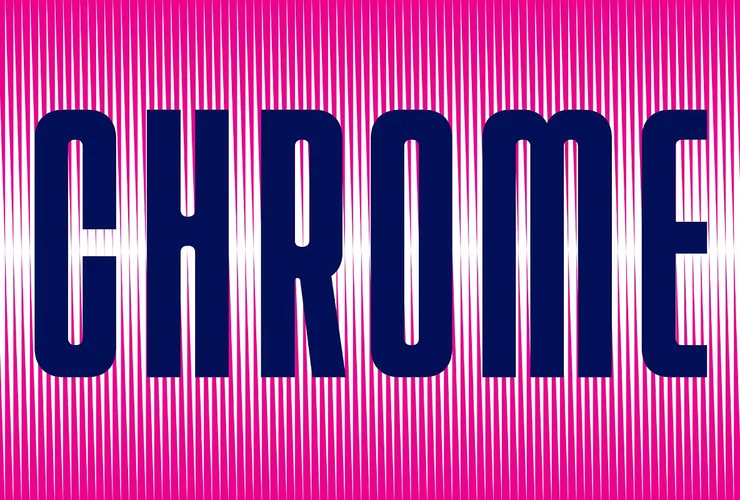
Araneo Condensed: A Futuristic Sans Serif by Stanley Fonts
Araneo Condensed is a sleek and futuristic sans serif font that offers a modern, condensed design perfect for a variety of creative projects. Created by Stanley Fonts, this font family brings a cutting-edge aesthetic to any design, whether you’re working on branding, editorial layouts, or digital interfaces.
Why Choose Araneo Condensed?
Araneo Condensed is designed for those who seek a clean, modern look with a strong visual impact. Its condensed nature allows for more text to fit within a given space, making it ideal for projects where space efficiency is key, without compromising on style.
Key Features of Araneo Condensed:
Futuristic Design: Araneo Condensed has a distinctly modern and futuristic appearance, making it perfect for tech-related projects, contemporary branding, and digital interfaces.
Versatile Font Family: The font family includes various weights—Light, Regular, Medium, SemiBold, and Bold—giving designers flexibility to create visual hierarchy and emphasis within their projects.
Space-Efficient: Its condensed design maximizes space usage, making it ideal for headlines, packaging, or any design where space is at a premium.
Legibility: Despite its condensed structure, Araneo Condensed maintains high legibility, ensuring that your message is always clear and impactful.
Perfect for Modern Design Needs
Araneo Condensed is a go-to choice for designers looking to infuse their projects with a futuristic vibe. Its versatility across different weights makes it adaptable for various design needs, from sleek logos to sophisticated editorial layouts. Whether you’re working on a tech startup’s branding or a cutting-edge website, Araneo Condensed delivers the modernity and clarity required.